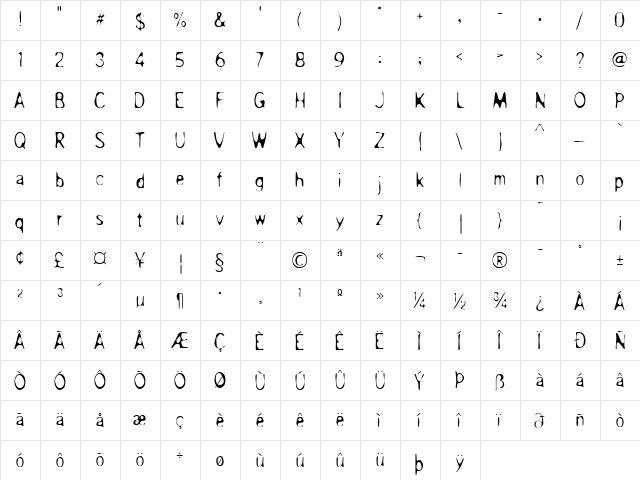
Overprint ICG Light
Design Context for Overprint ICG Typeface
Overprint ICG is a composed and adaptable typeface that performs quietly and consistently across a wide range of design contexts. The delicate stroke weight brings airiness and refinement to layouts.